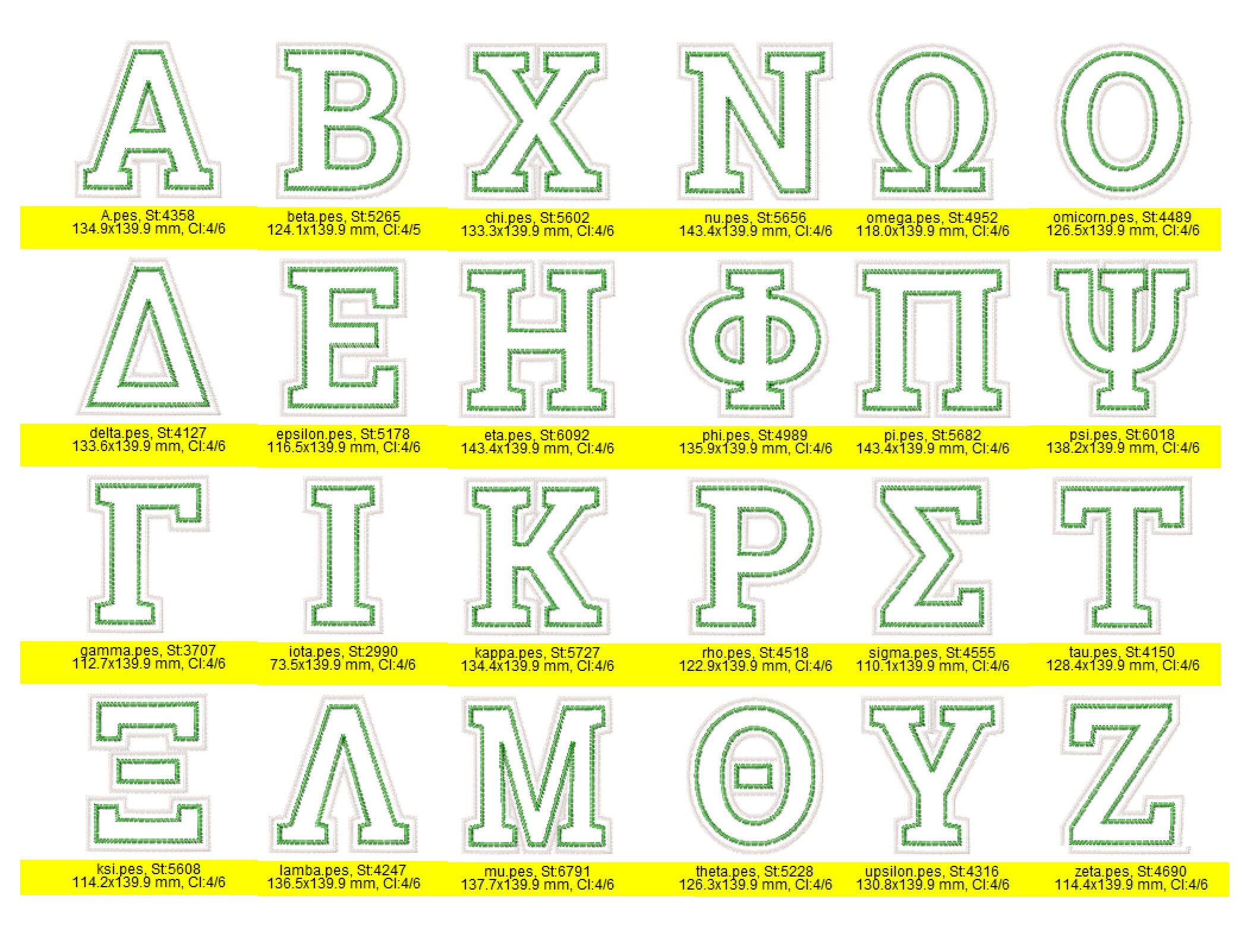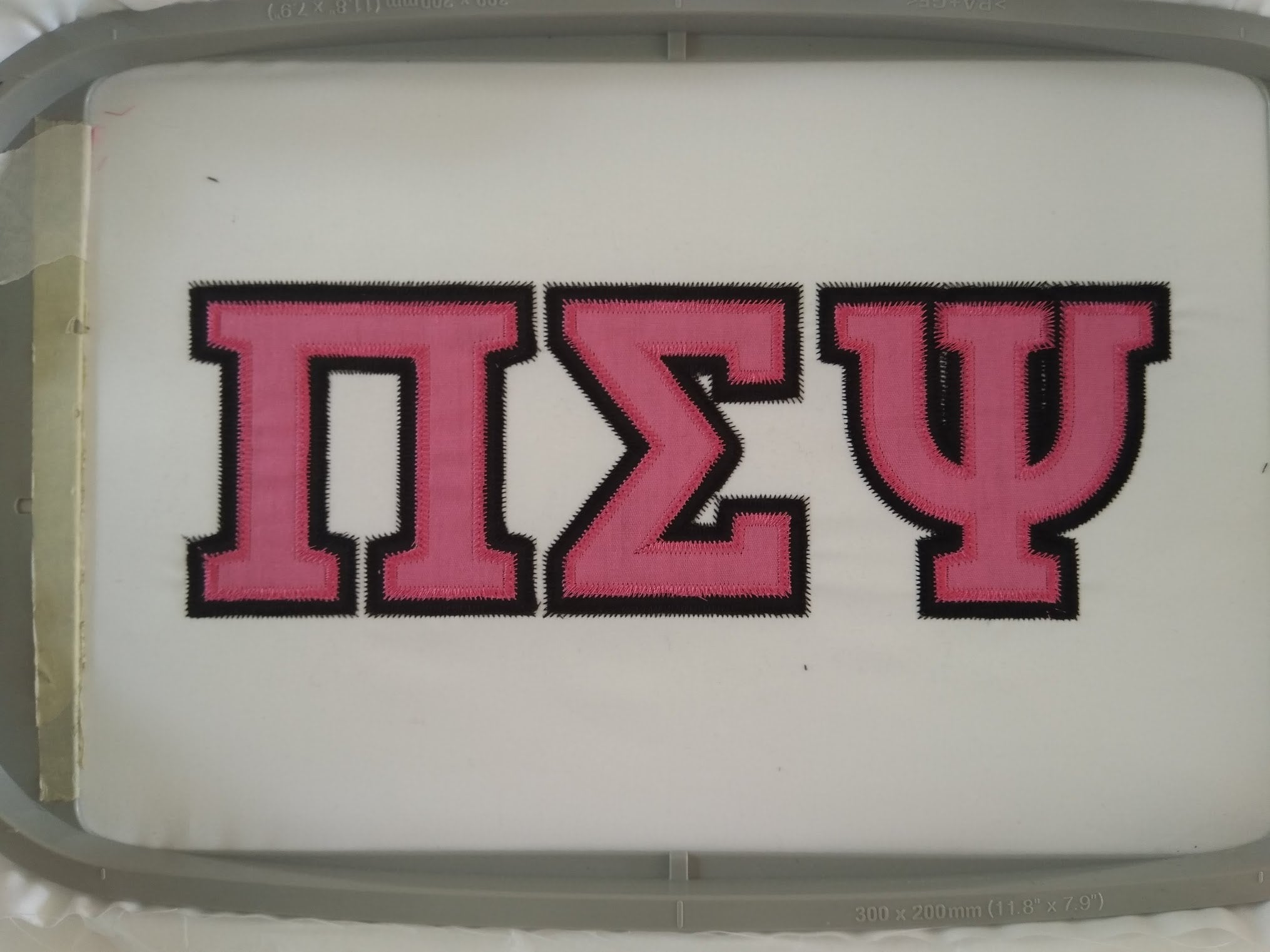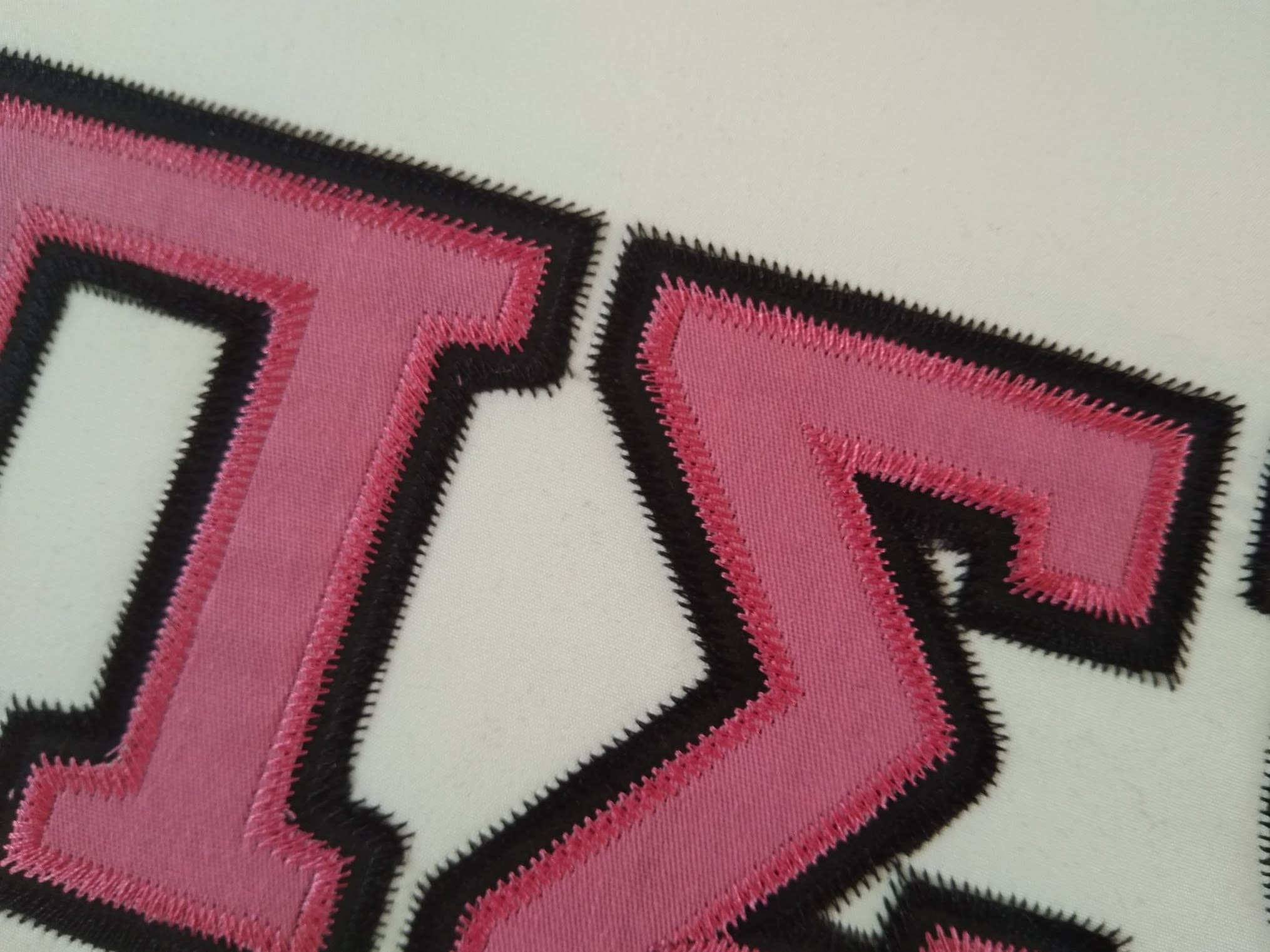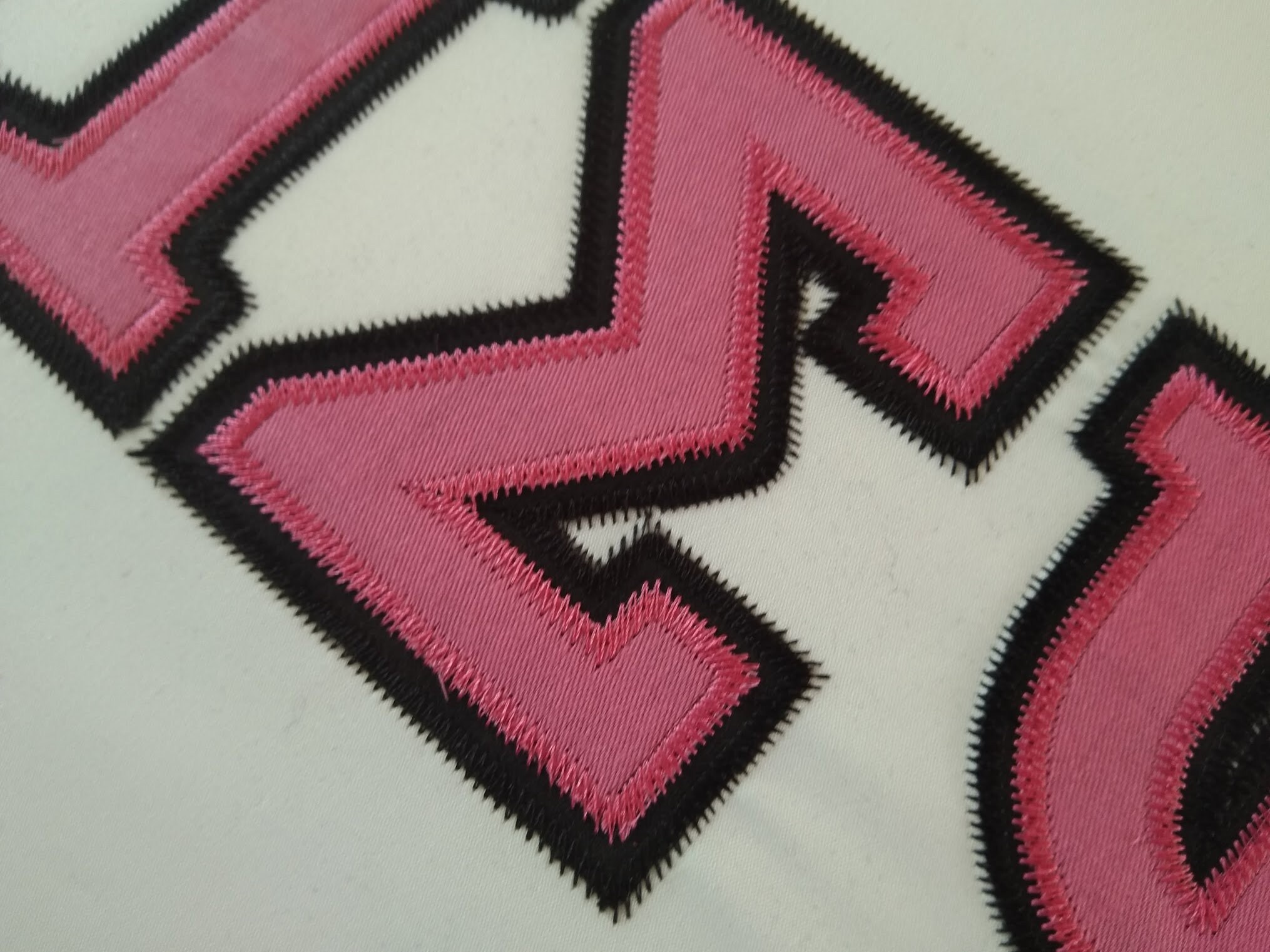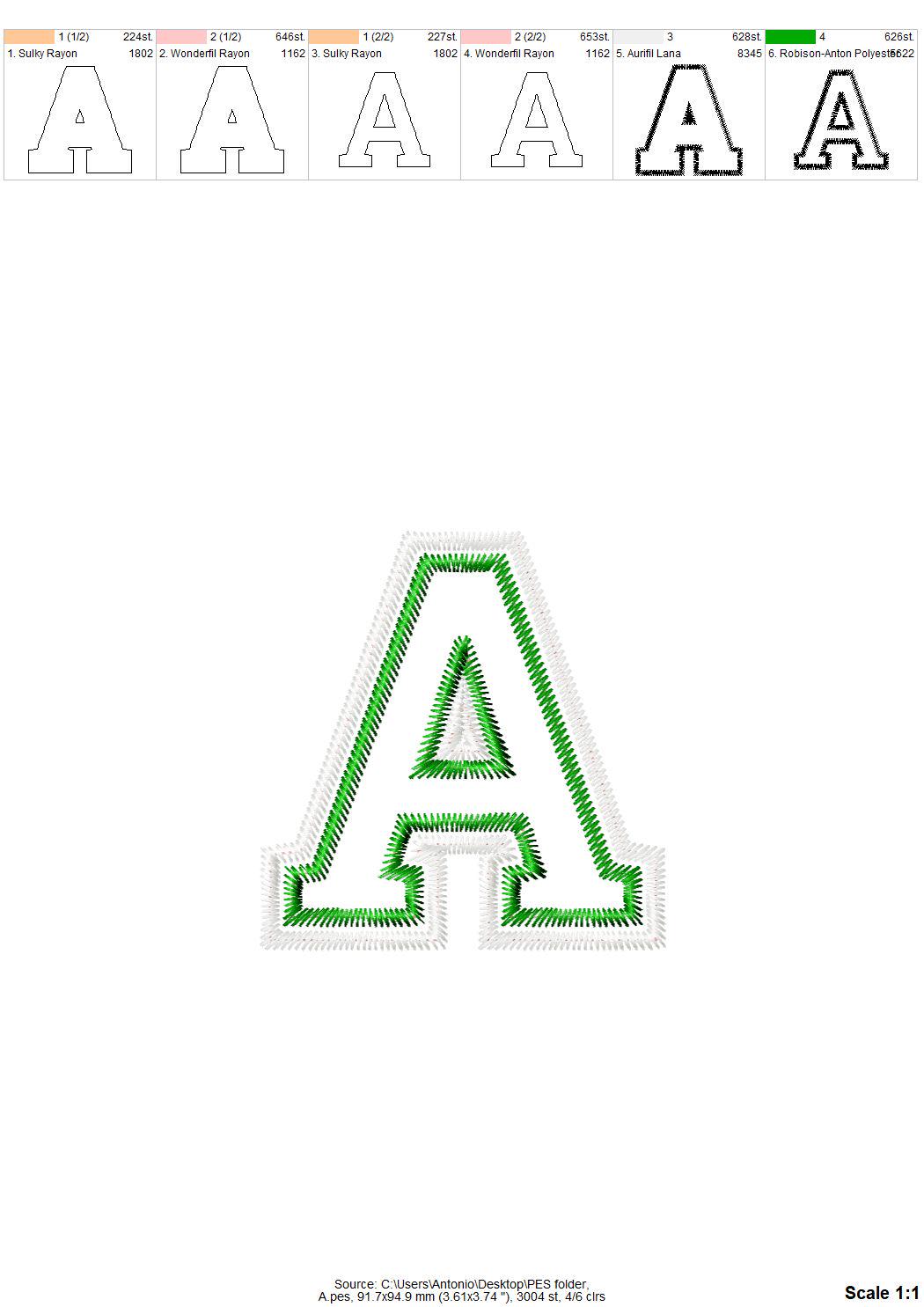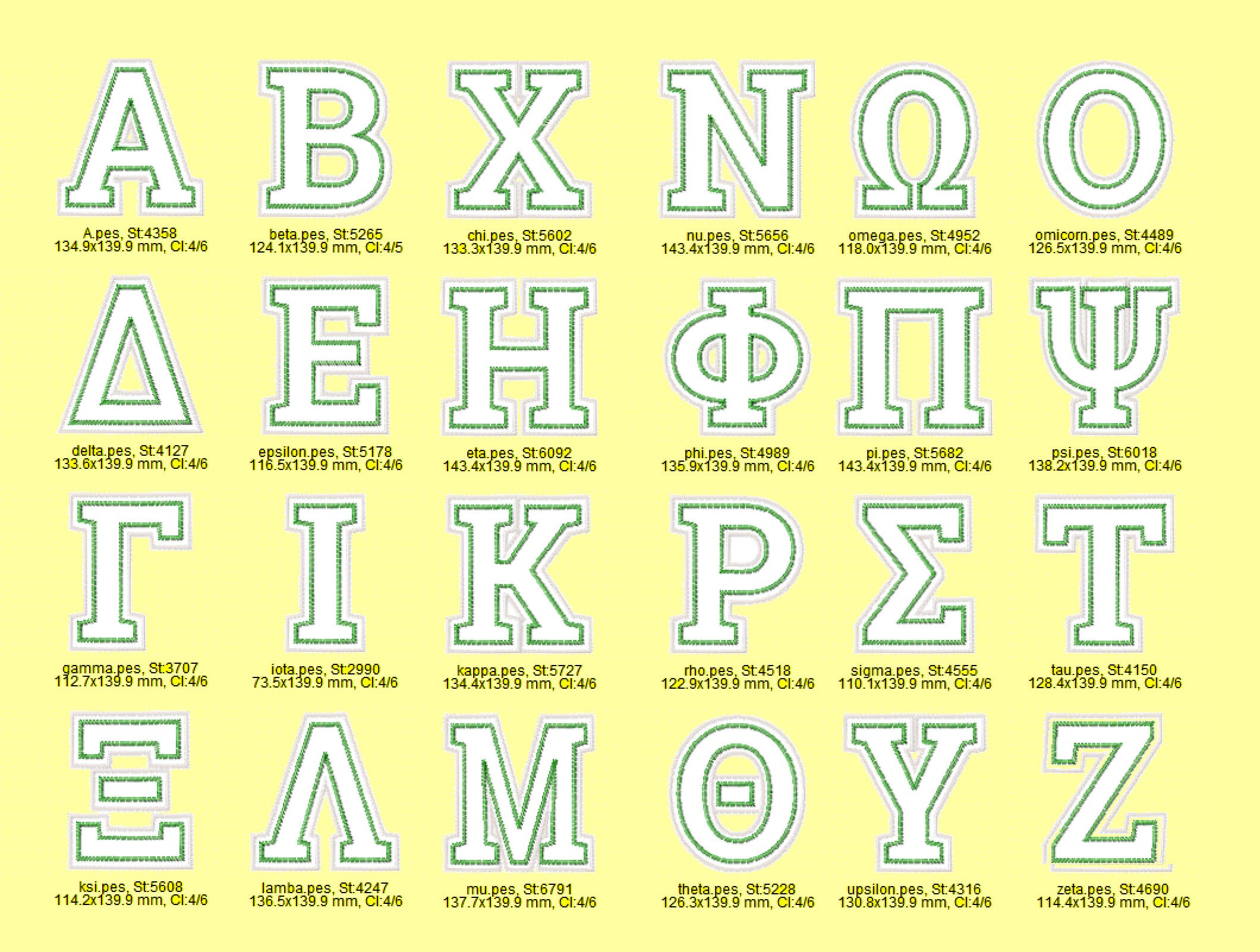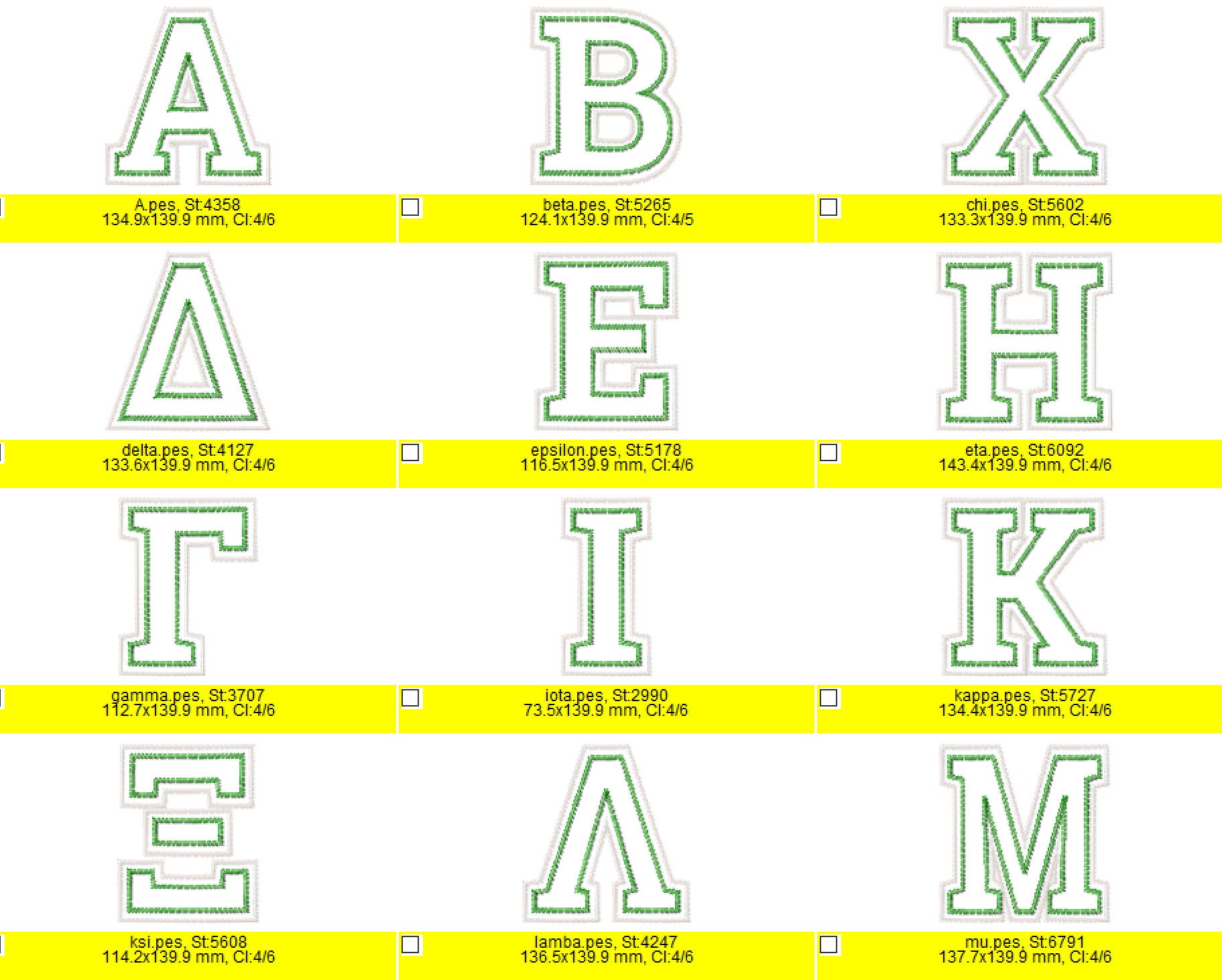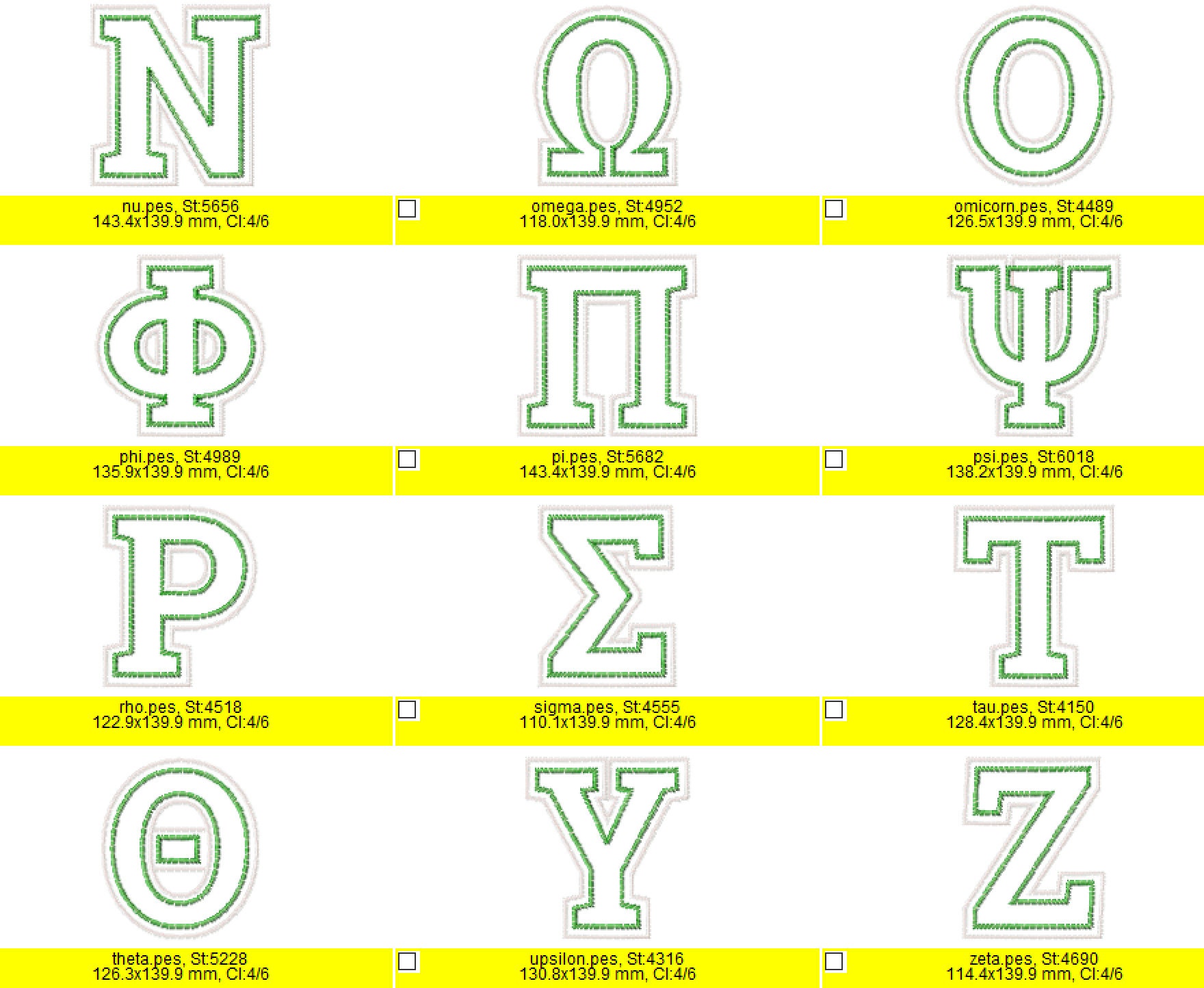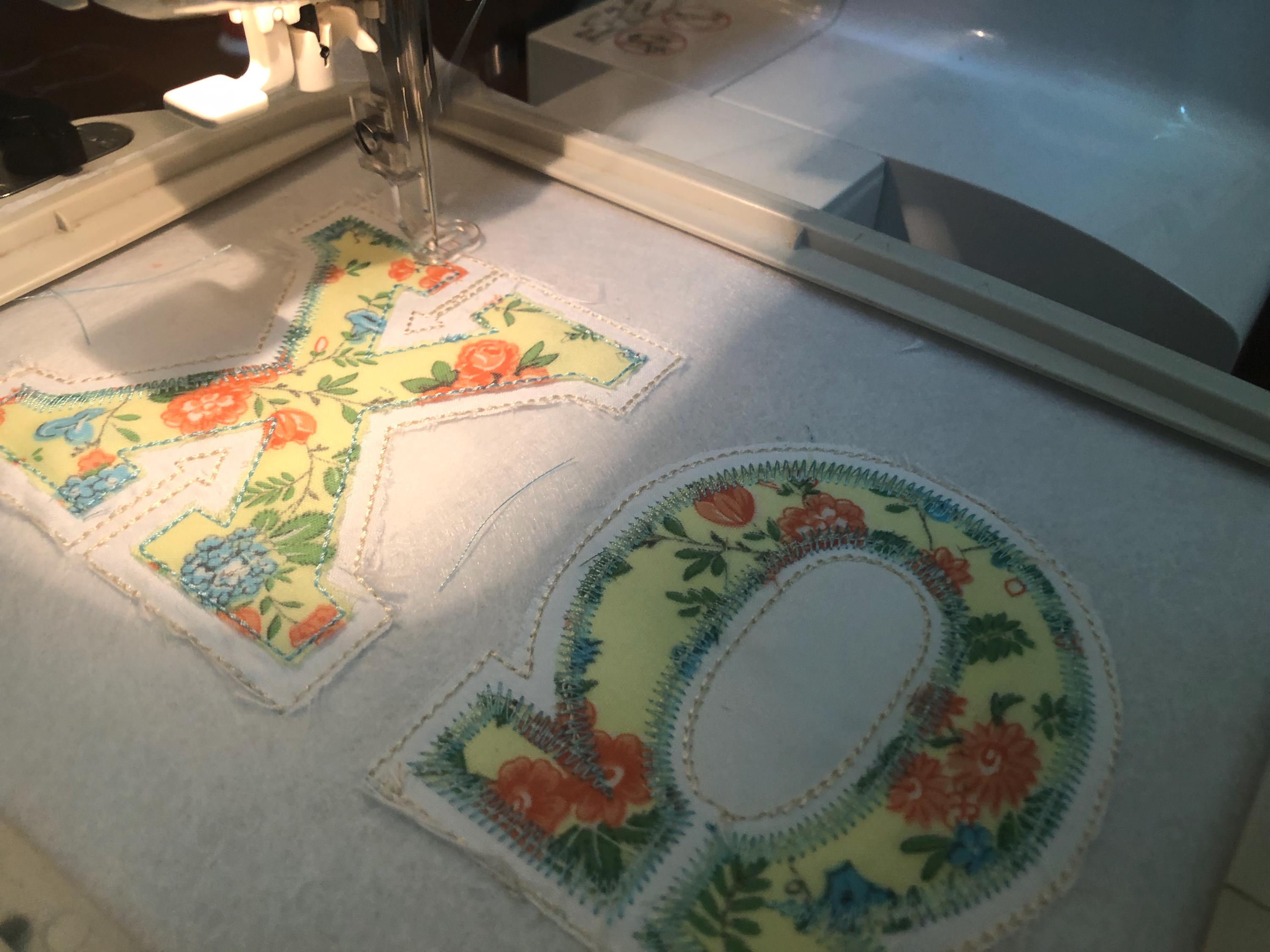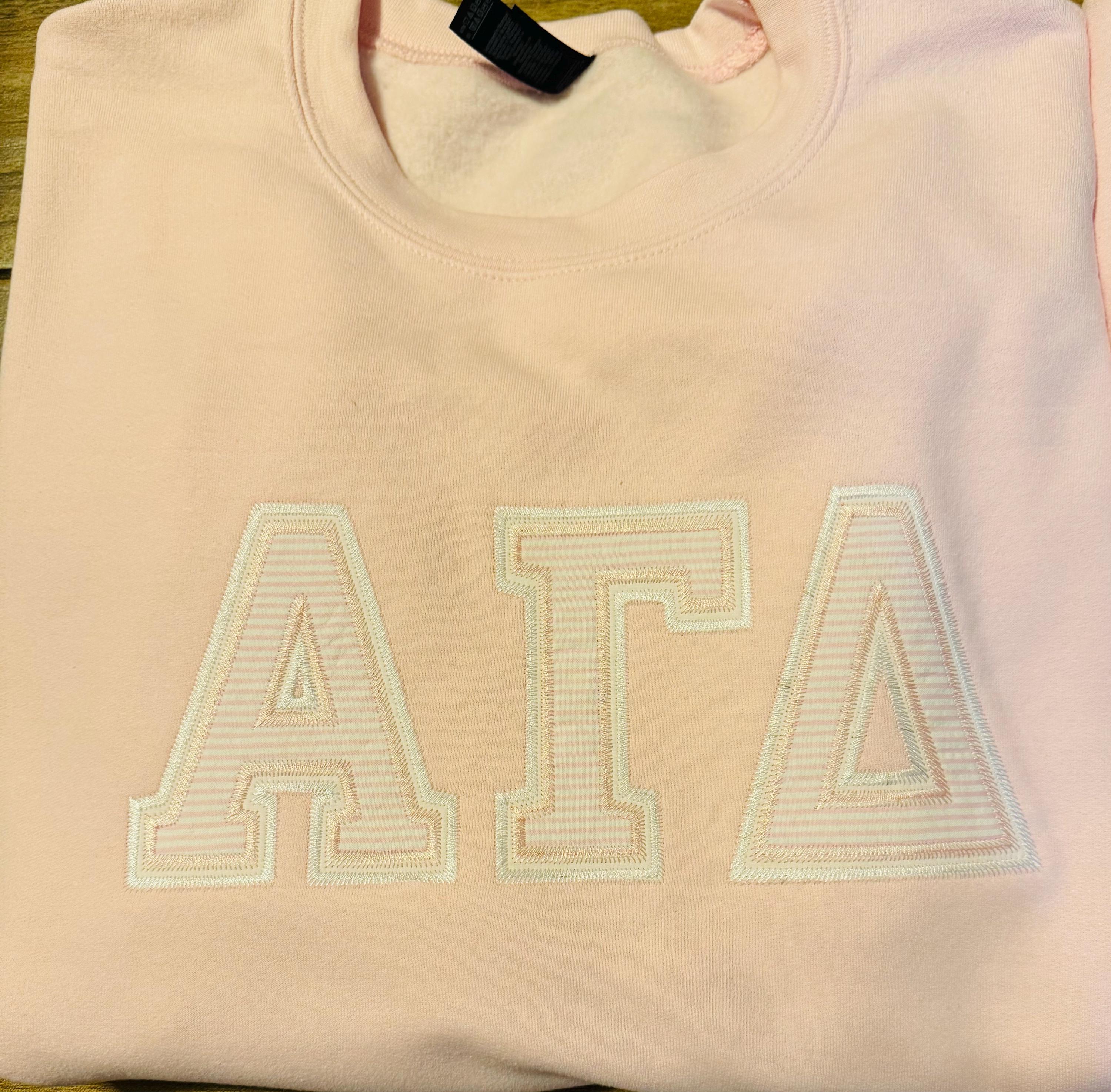
GREEK FONT appliqué 2 layers Zig Zag outline Alphabet Monogram sororities fraternities machine embroidery designs sizes 2.5 up to 6 inch BX
This listing is for whole Greek font/alphabet
Letters are 2 step applique with ZIG-ZAG applique finish